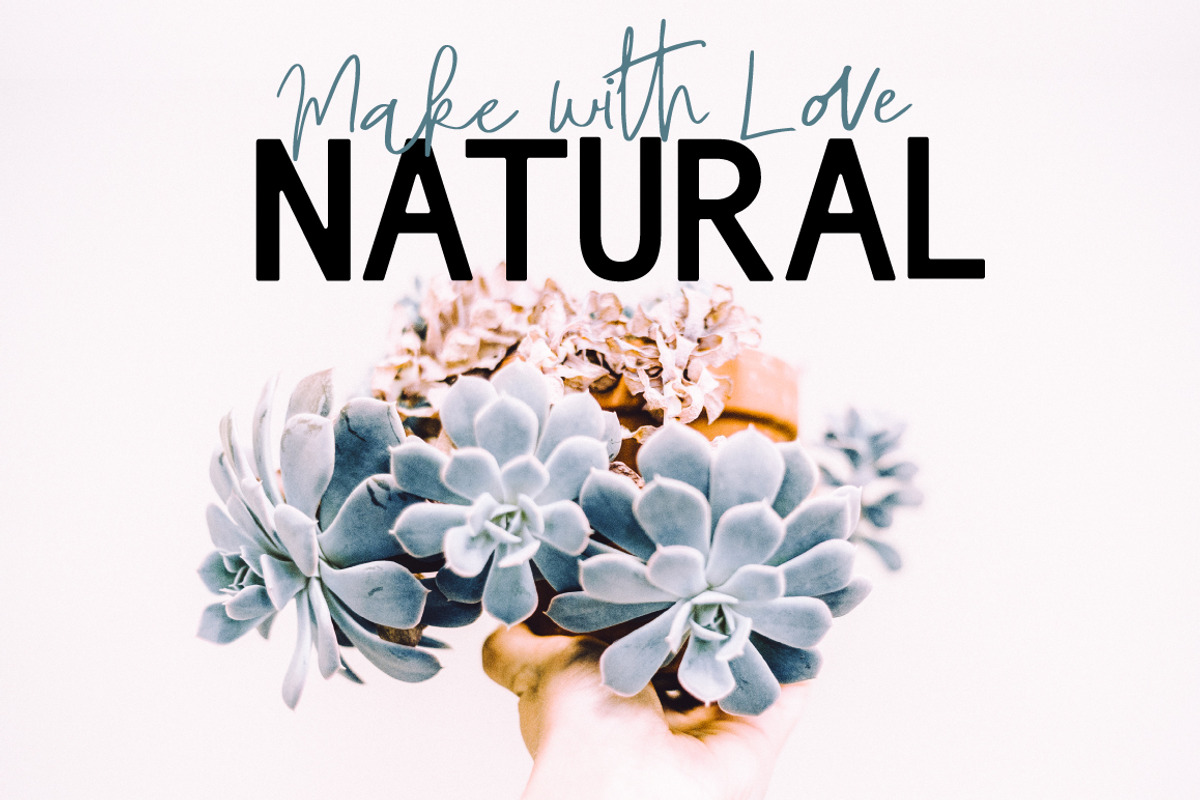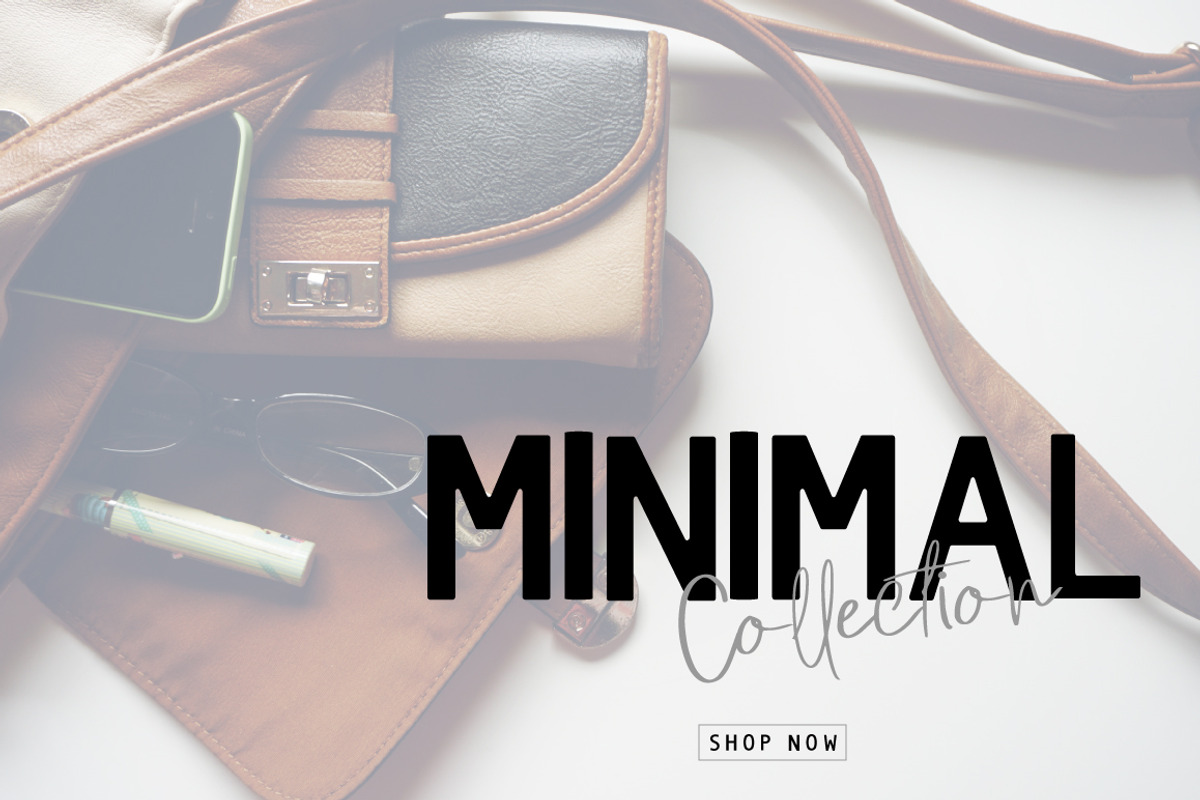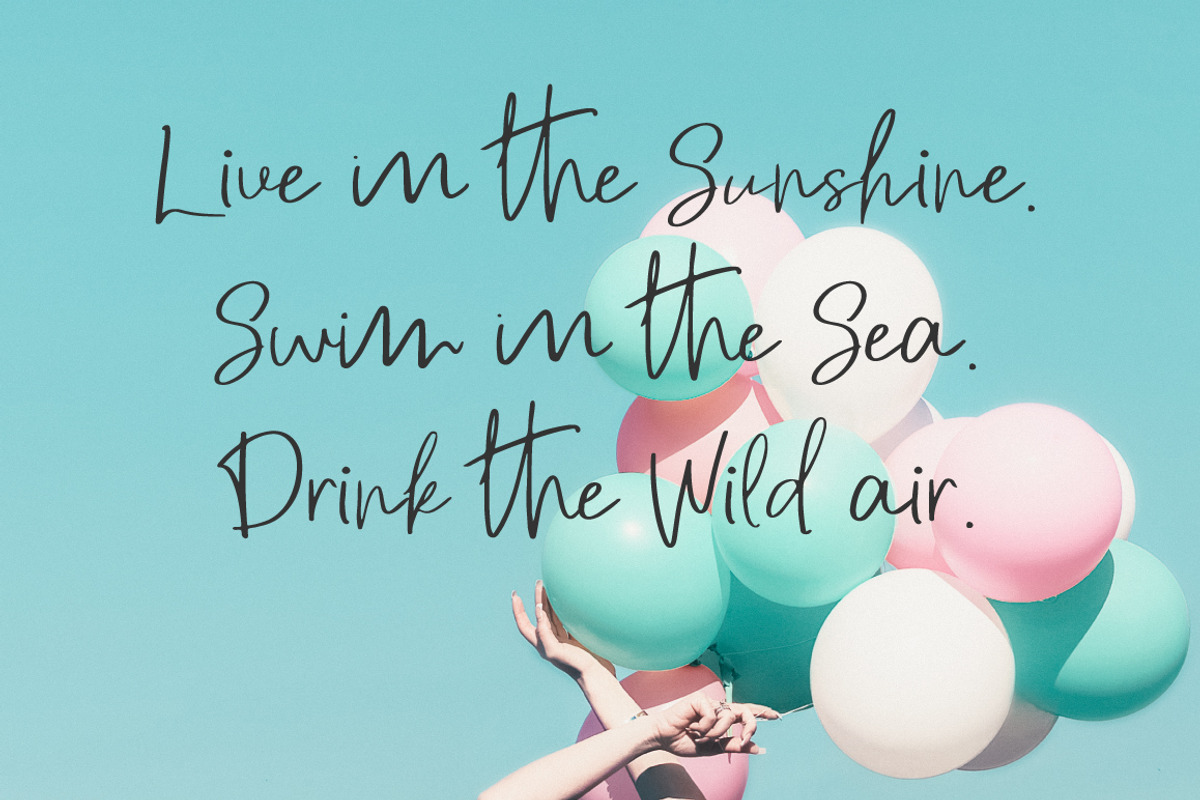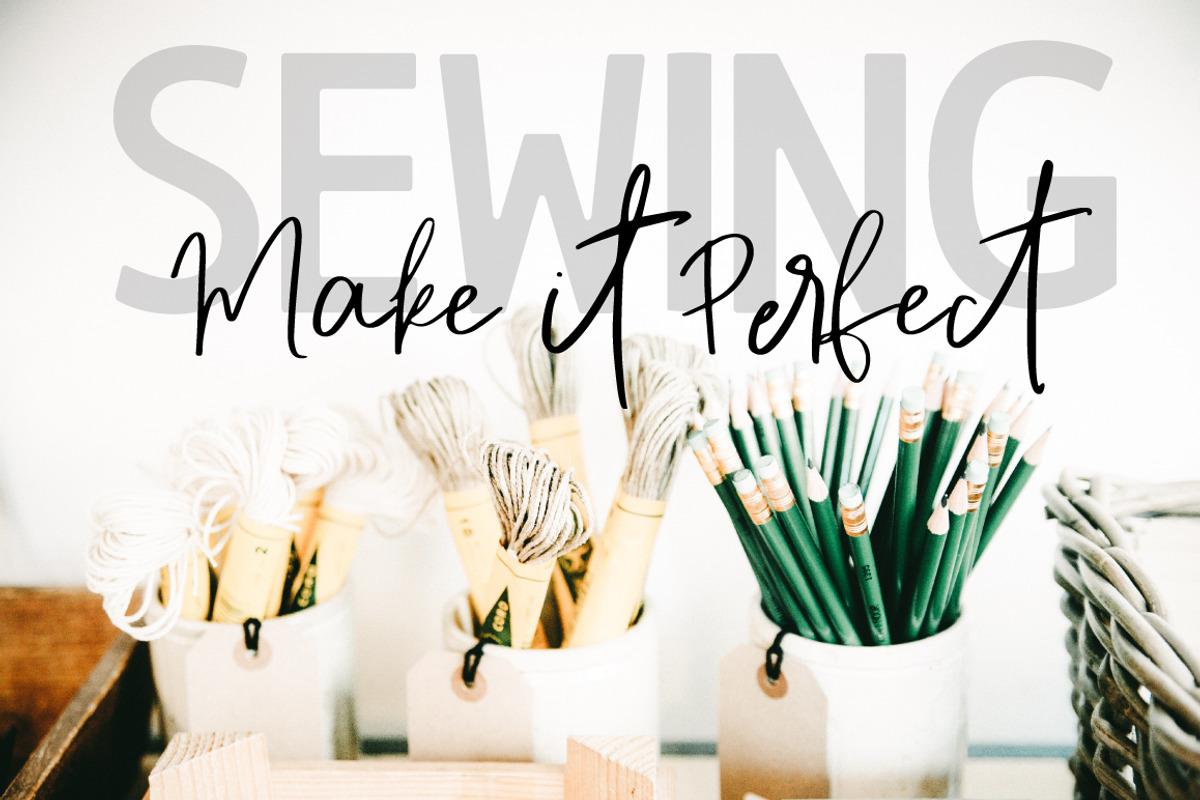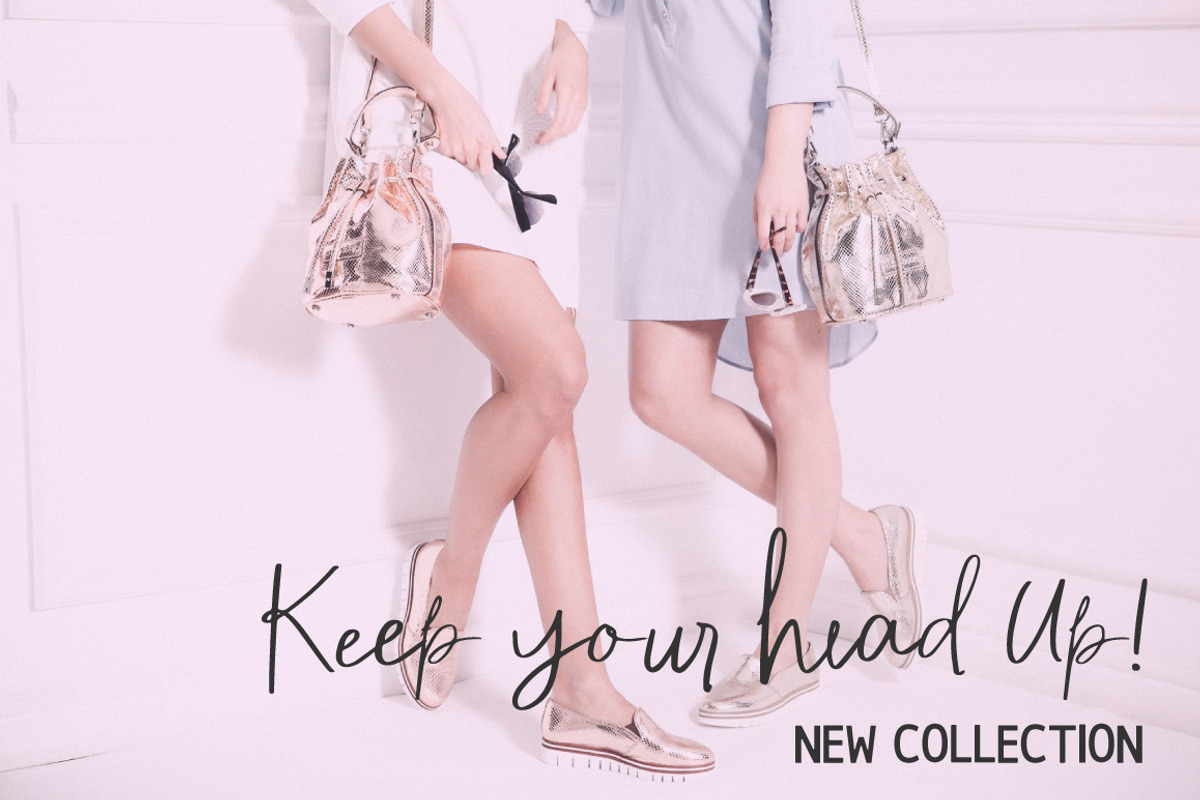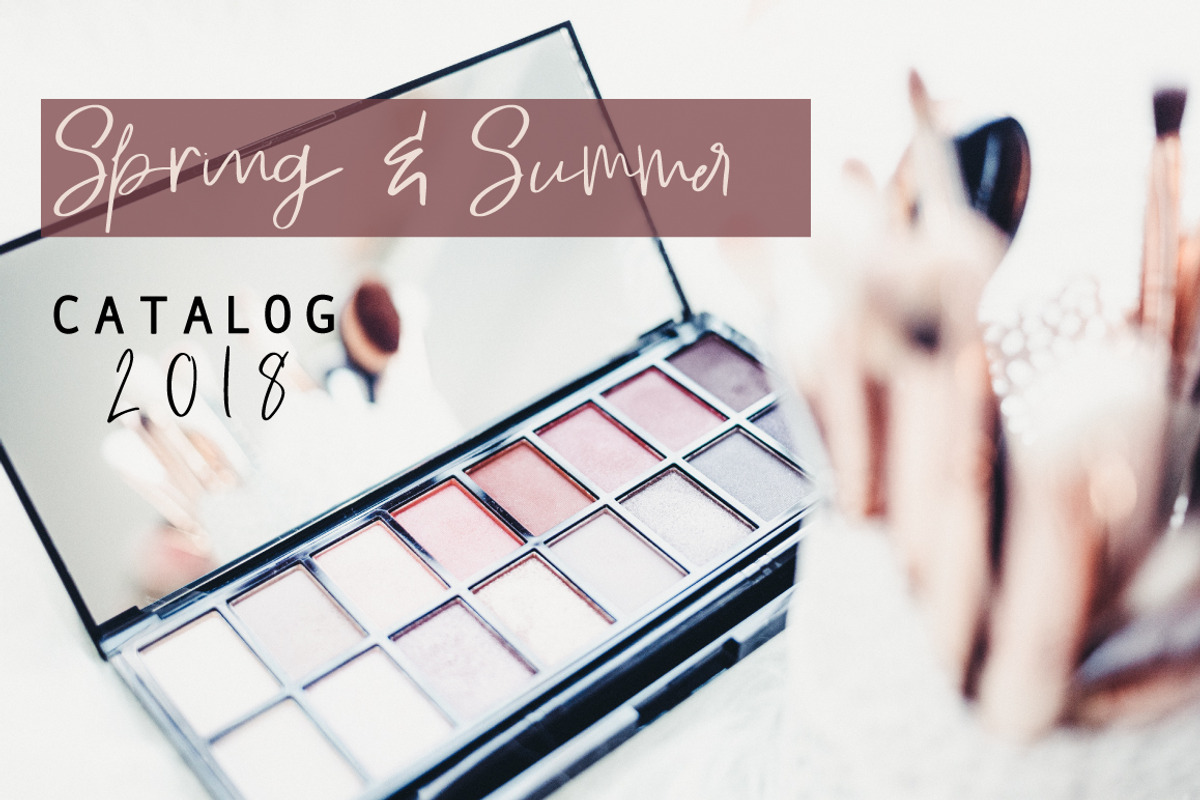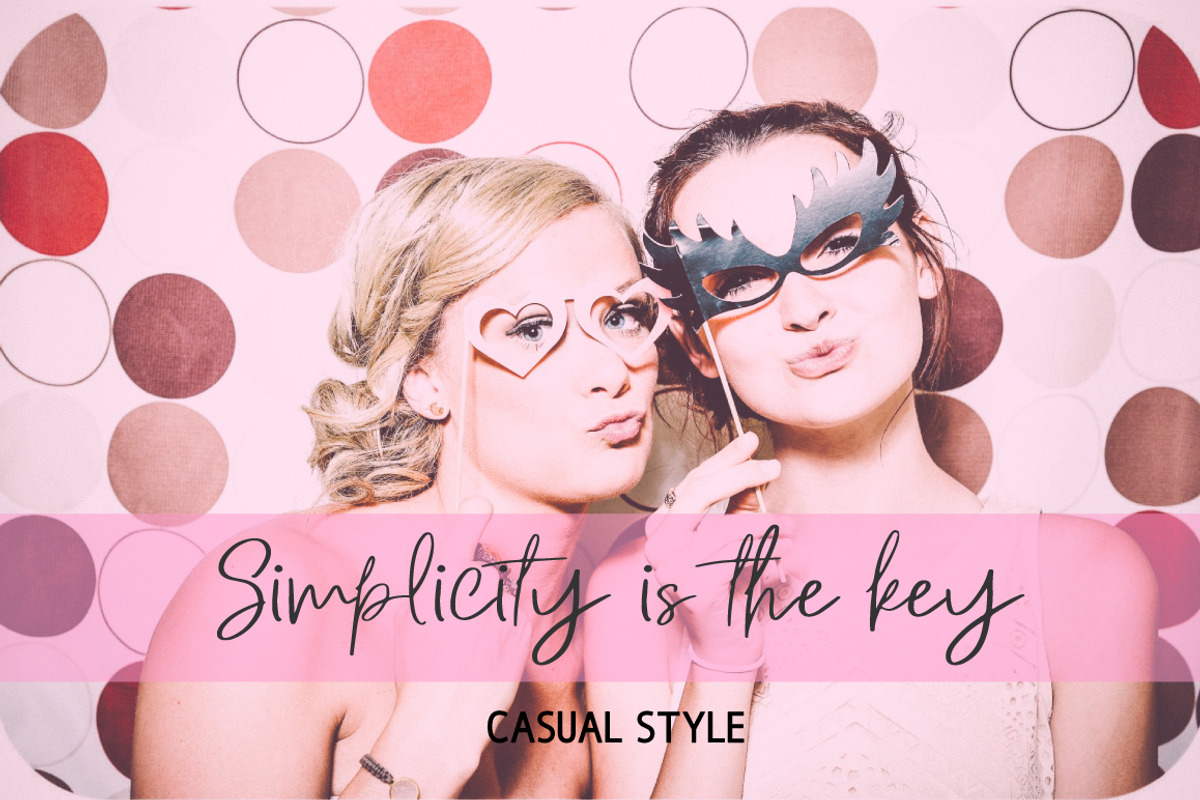
Please Oneself Font Duo
Please Oneself is Signature script with Modern san serif font
Every single letter has been creative carefully and Perfectly Playful new font pair. This font is a perfect script designed for making your set of invitations, Brand, blog posts, and more completely beautiful
The script has alternate upper and lowercase character set
And you get 73 Ligatures